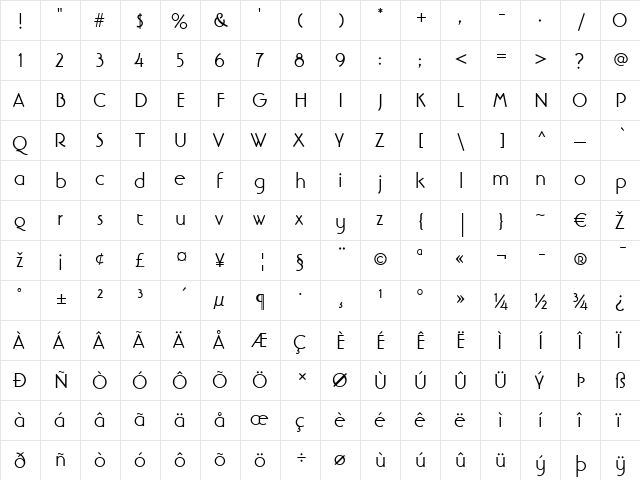
LTBanjoman Text Roman Regular
Design Context for LTBanjoman Text Roman Typeface
LTBanjoman Text Roman takes a measured approach to typography — its balanced proportions and neutral character make it a reliable workhorse for both digital and print work.